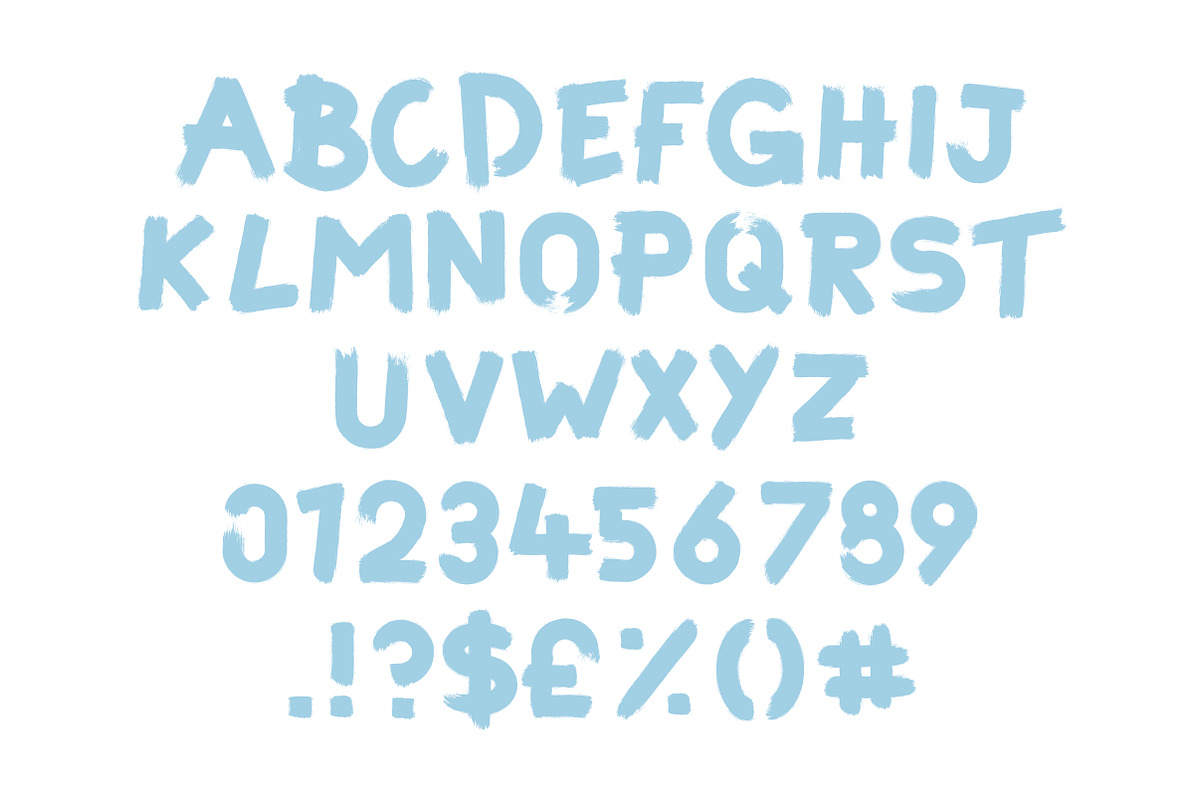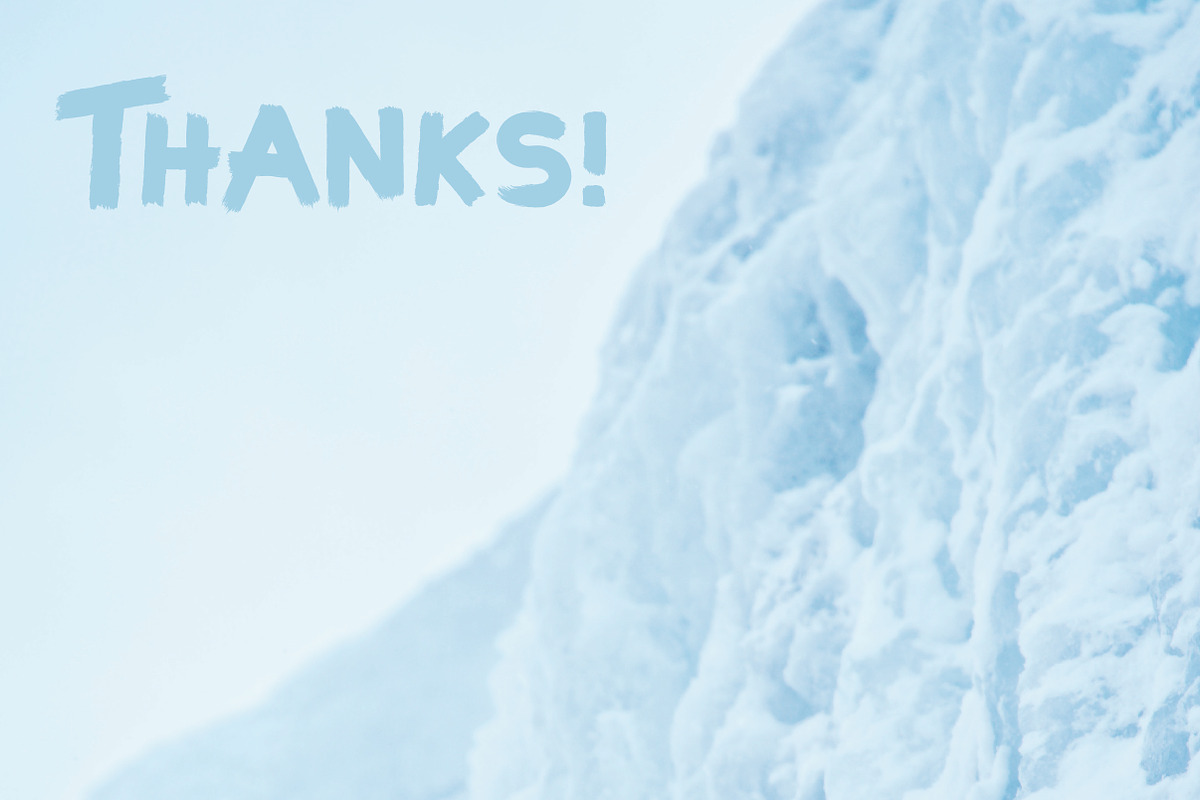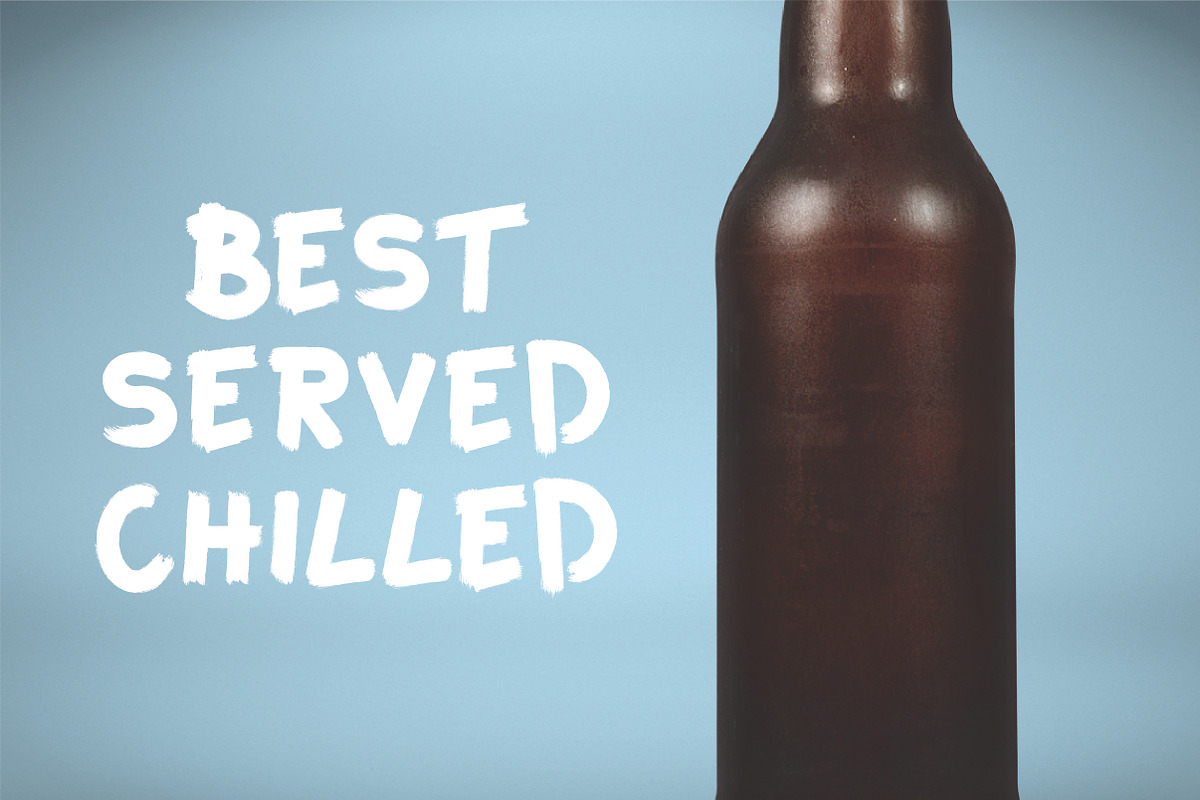
Polar Typeface | Brush Font
Polar Typeface | Brush Font by MikeHill is a font selected for branding, posters, packaging, typography.
Why Polar Typeface | Brush Font is worth a look
Polar Typeface | Brush Font by MikeHill fits naturally into Branding, posters, packaging, typography.